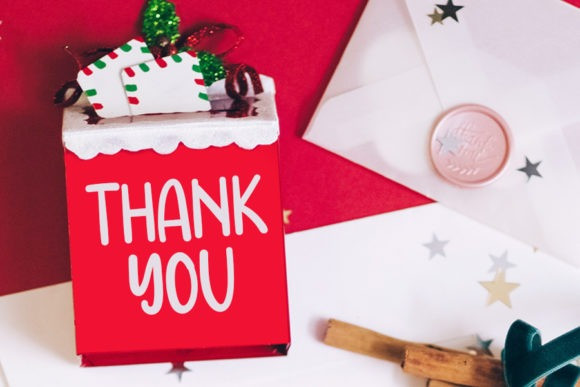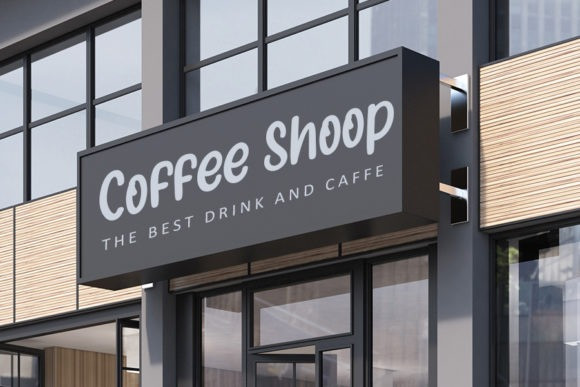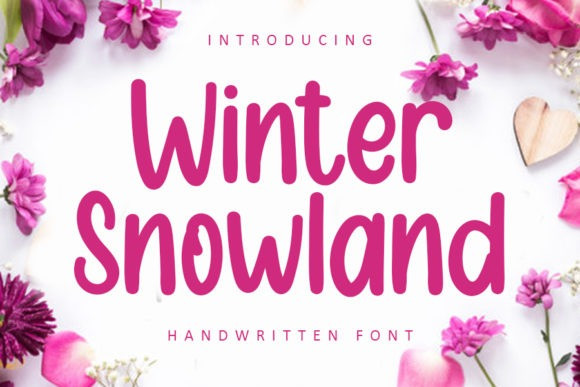
Winter Snowland Font
Winter Snowland Cute Font is a neat, versatile, and well-balanced handwritten font. This font is simple and easy to use for all your design and crafting needs.